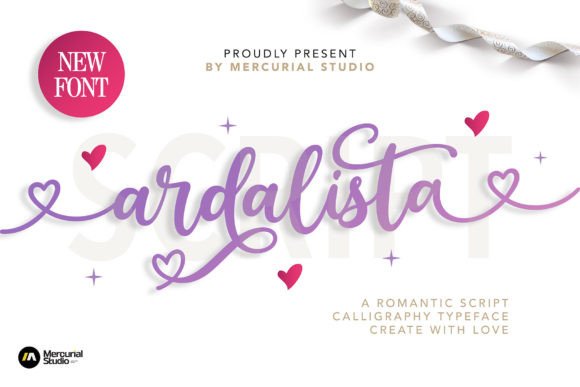
The Magic of Ardalista Font: Elevate Your Designs with Elegance
A Personal Review: What I Love About Ardalista Font
Ardalista Font has been a game-changer for me, and here’s why:
- ✨ Elegant and Charming: The font exudes a sense of sophistication and charm, making it perfect for designs that require a touch of luxury.
- ✅ Versatile: From wedding invitations to business cards, and posters to t-shirts, Ardalista Font adapts seamlessly to various design projects.
- 💫 Script Typeface with Extra Letters: The font comes with a range of letters and ligatures, giving you the freedom to experiment with different designs.
While Ardalista Font has been a delight to work with, there are a few minor limitations to be aware of:
Ardalista Font was created with the intention of capturing the essence of elegant and charming script calligraphy. The designer aimed to create a font that would be versatile, yet sophisticated, and perfect for a range of design projects. While the designer’s story is shrouded in mystery, it’s clear that Ardalista Font has been crafted with love and attention to detail.
| Font Name | Ardalista Font |
| Is Ardalista Font suitable for body text? | While Ardalista Font is beautiful, it’s best suited for headings, titles, and short paragraphs. For body text, a clearer font may be more suitable. |